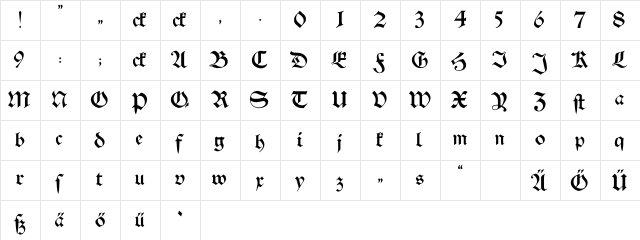
Schwaben Alt bold
Style: bold
Schwaben Alt Family
Design Context for Schwaben Alt
Schwaben Alt is a composed and adaptable typeface that performs quietly and consistently across a wide range of design contexts. Its bold stroke weight gives it real presence on the page.